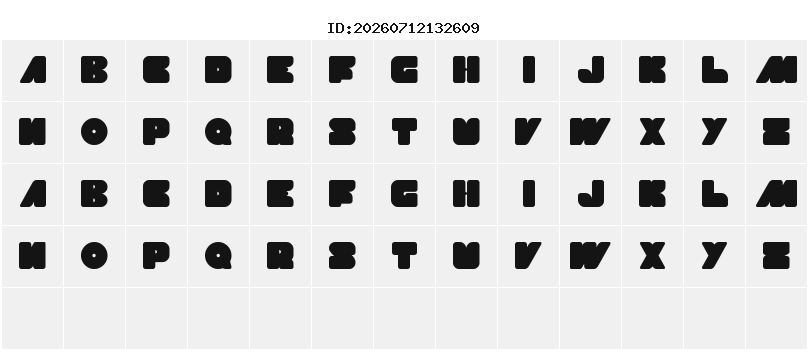
• Font Name: MADE IN EARTH
• Full Font Name: MADE IN EARTH
About MADE IN EARTH.ttf
MADE IN EARTH.ttf is a modern, elegant sans-serif font designed for ultimate readability and visual harmony. Perfect for branding, headlines, web design, and print materials.